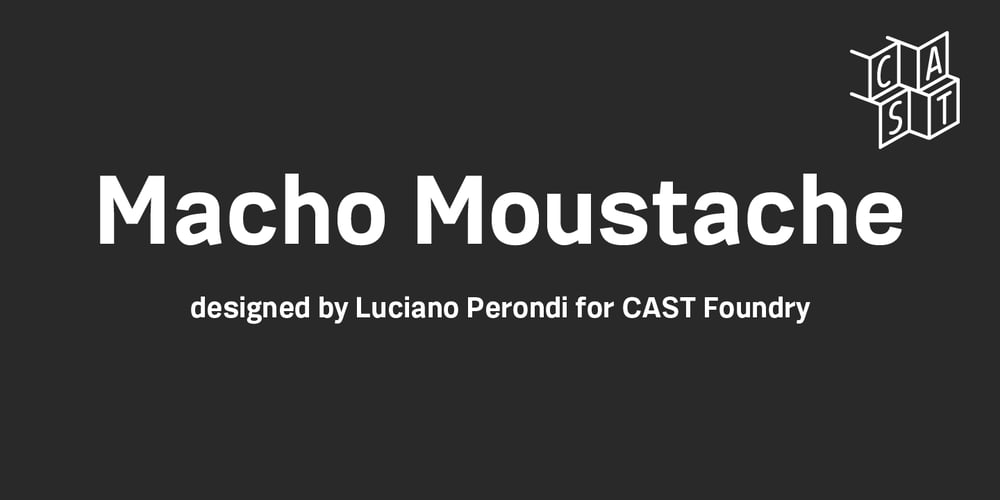
Macho Moustache Font Family was designed by Luciano Perondi and published by CAST. Macho Moustache contains 10 styles and family package options. Macho Moustache is closely related to Macho Modular, the parent type with which it shares modular widths and most letterforms. The difference is that Macho Moustache follows the ‘Grotesque’ tradition of tight apertures for a, c, e and s as well as some of the numerals. Original design work started together with Macho Modular in 2008. Now the range and communication potential of the Macho family has been developed with five weights. Since the Macho family was designed bearing in mind the idea of Themerson’s semantic typography, Macho Moustache features all sets of modular brackets and underlinings.